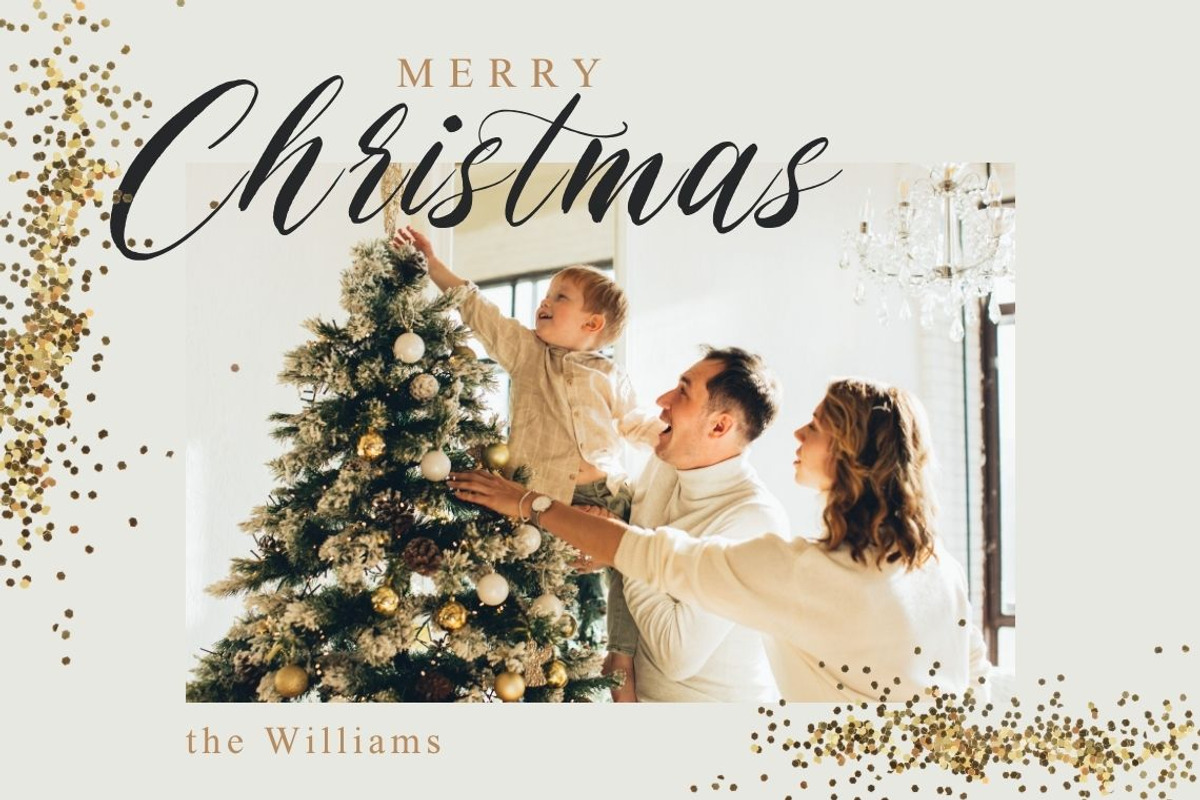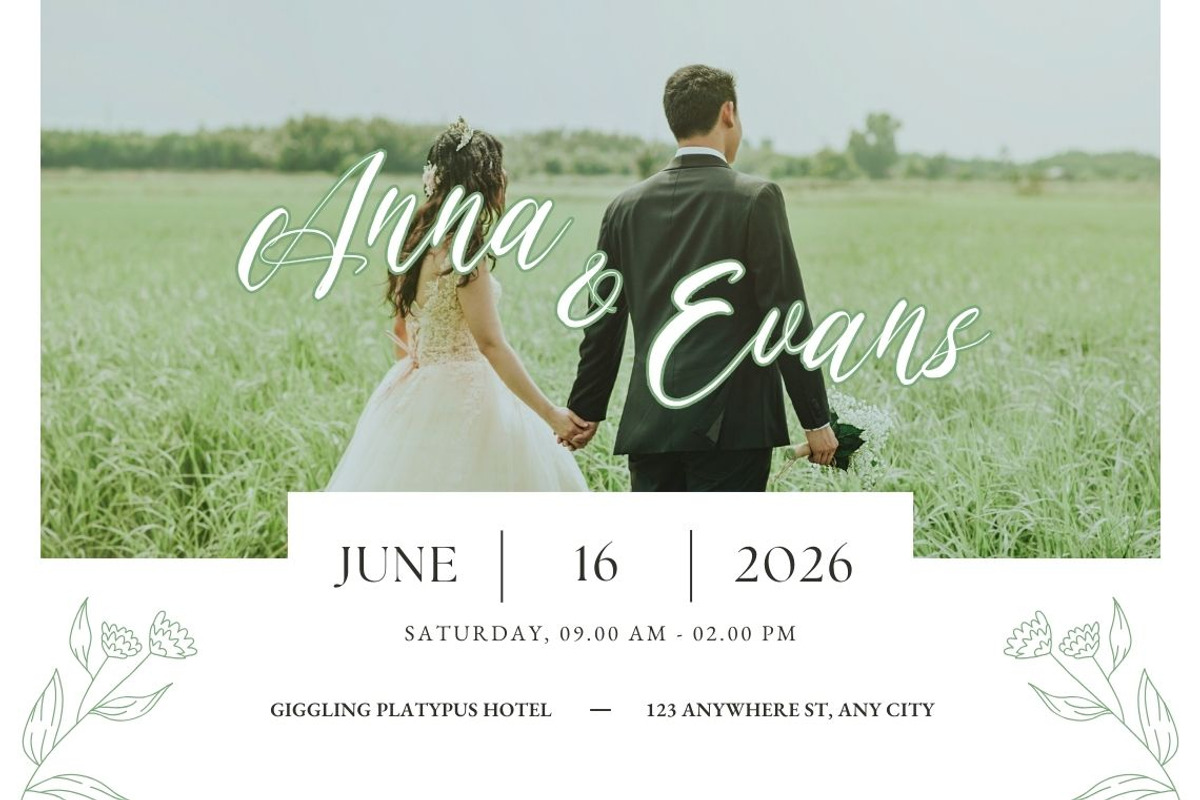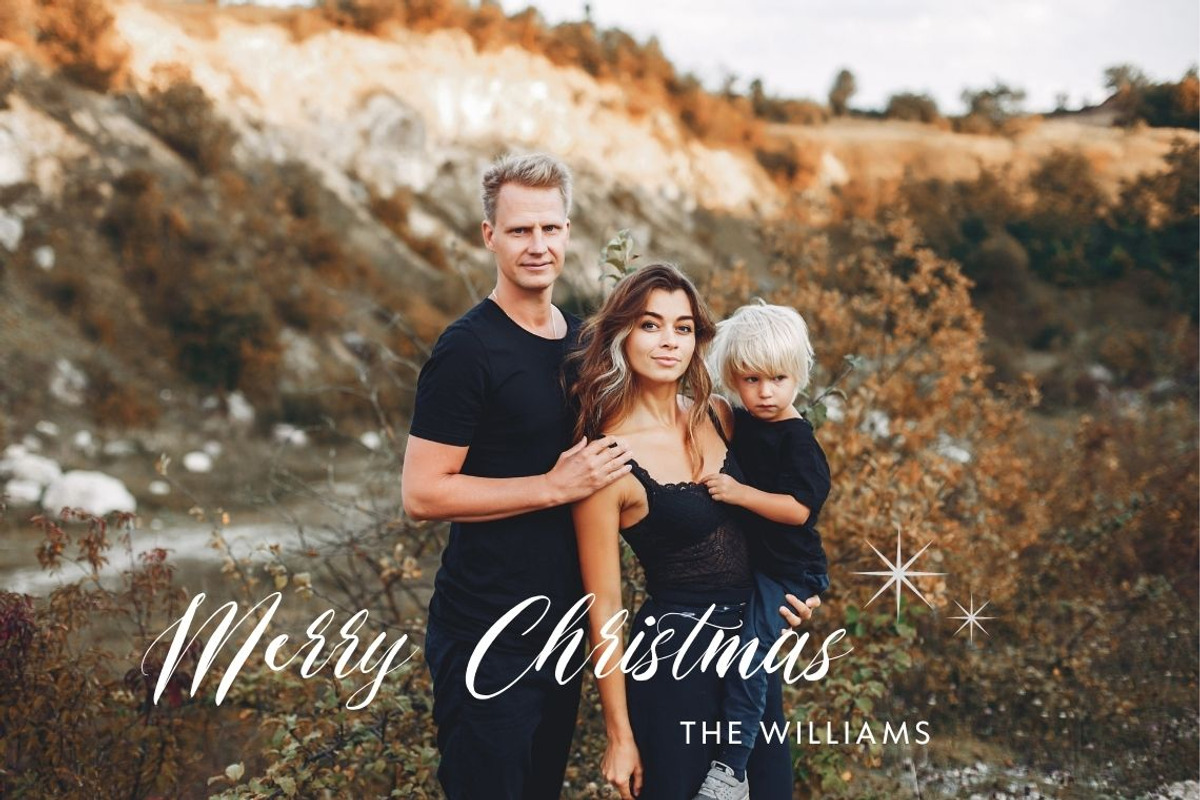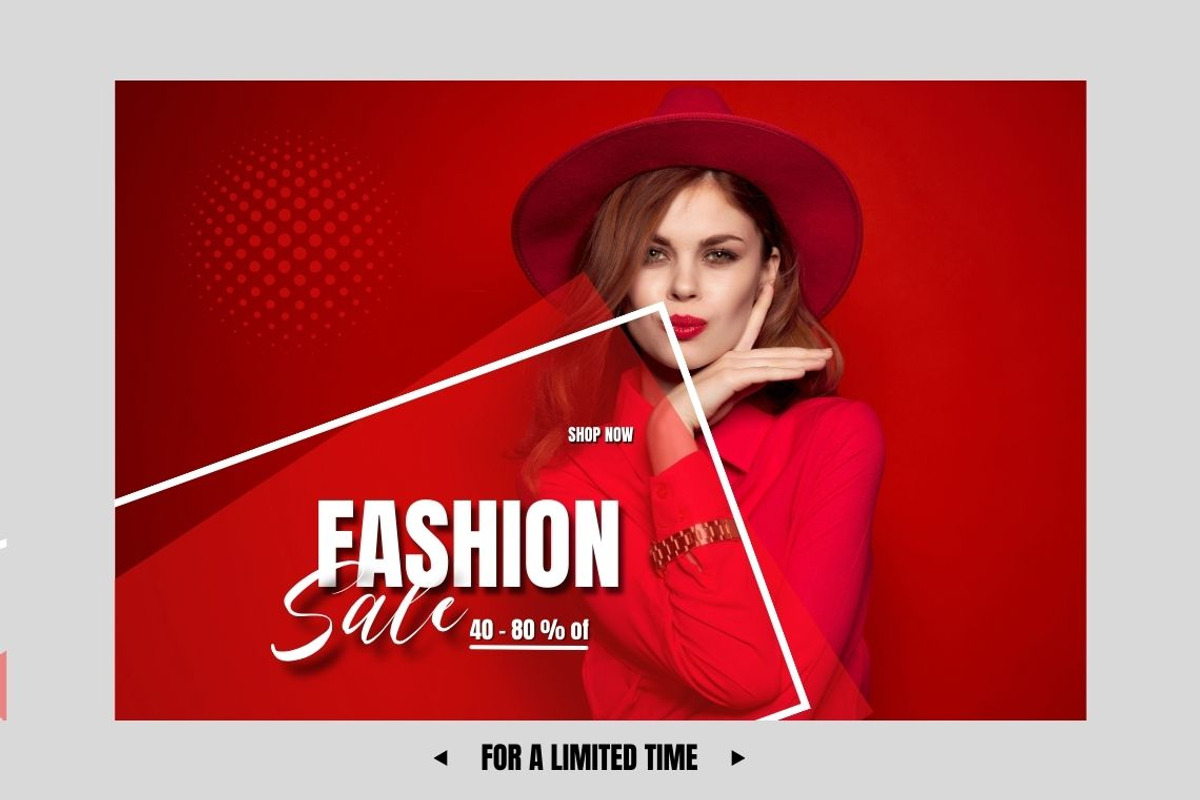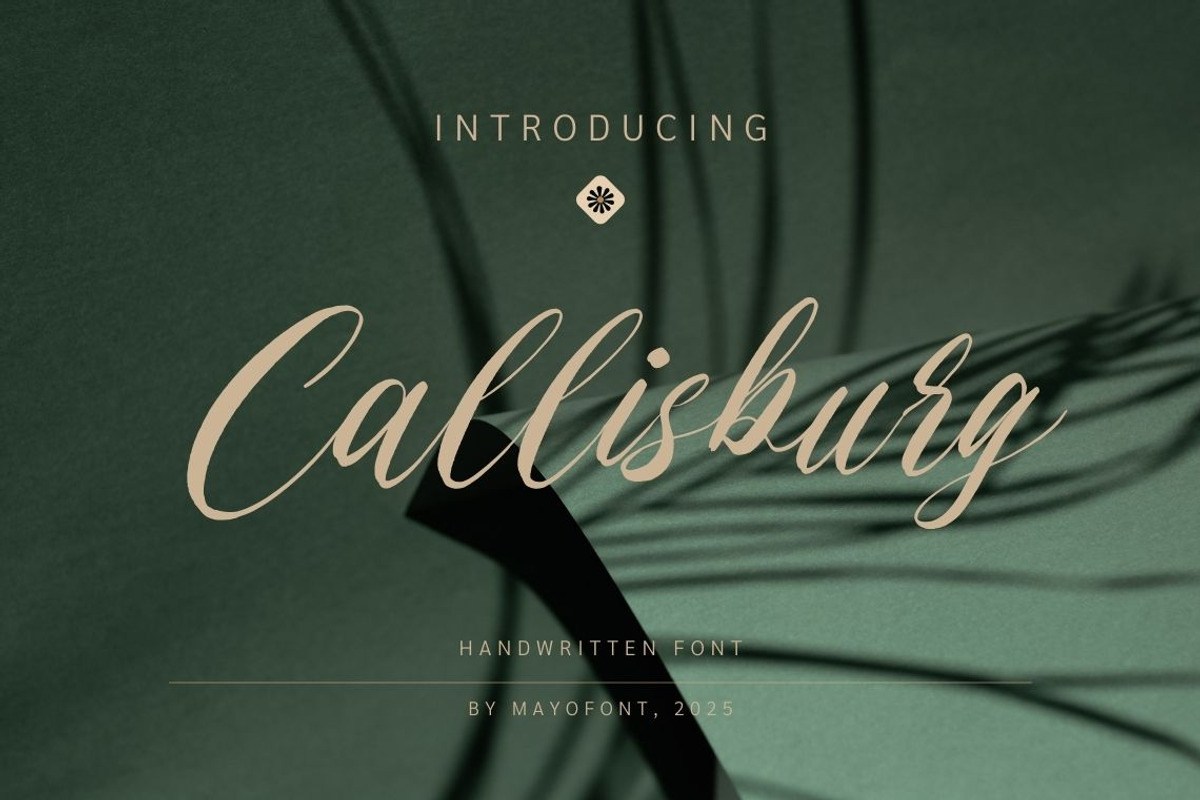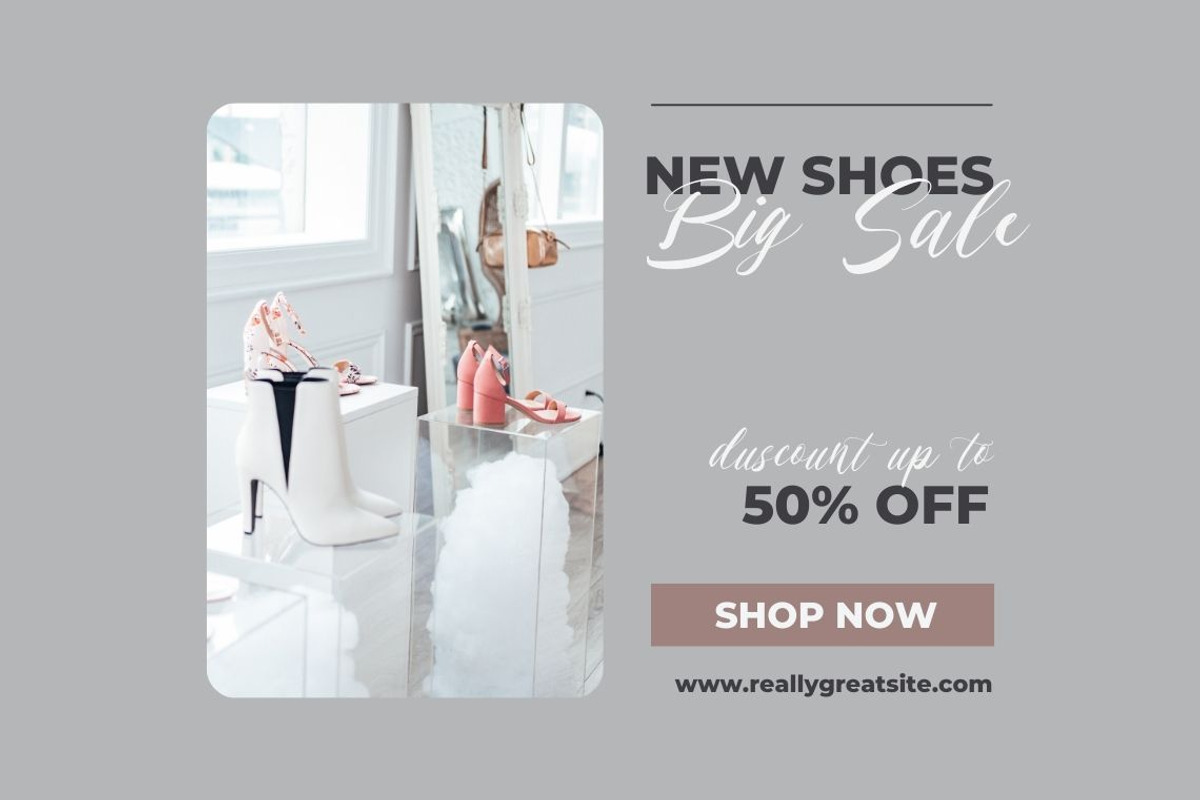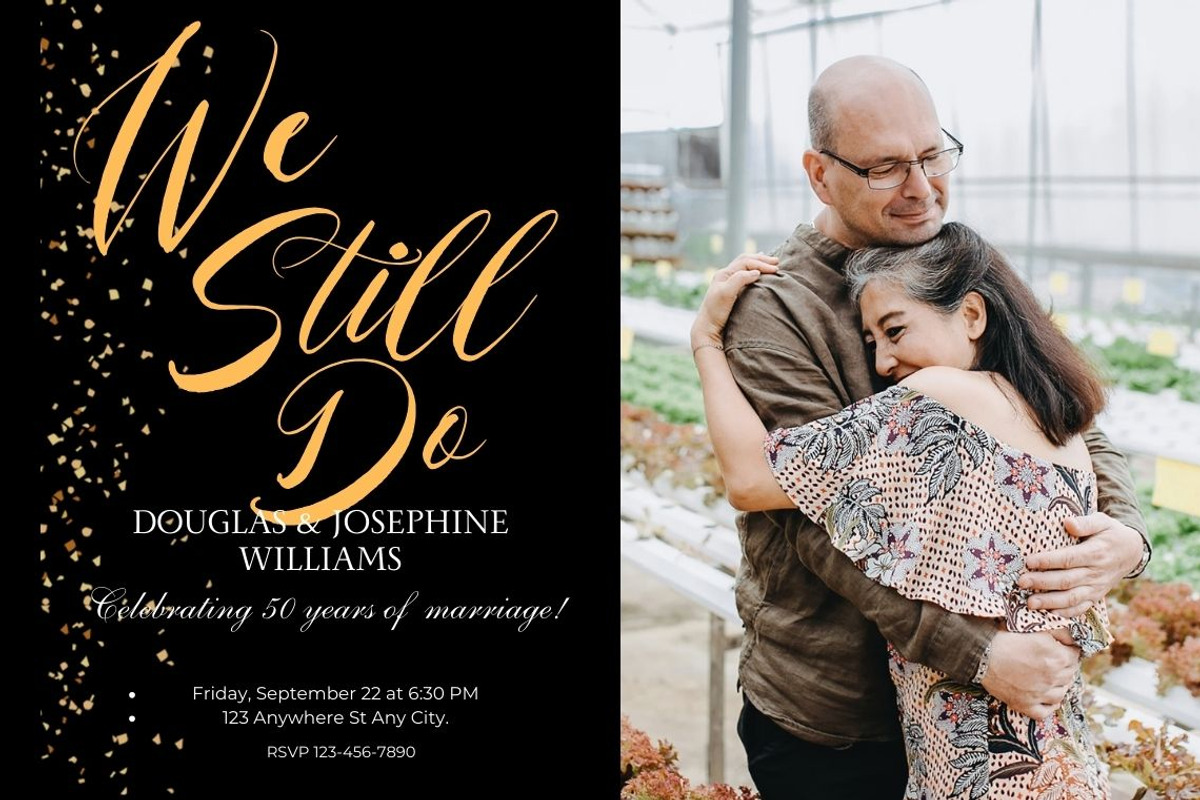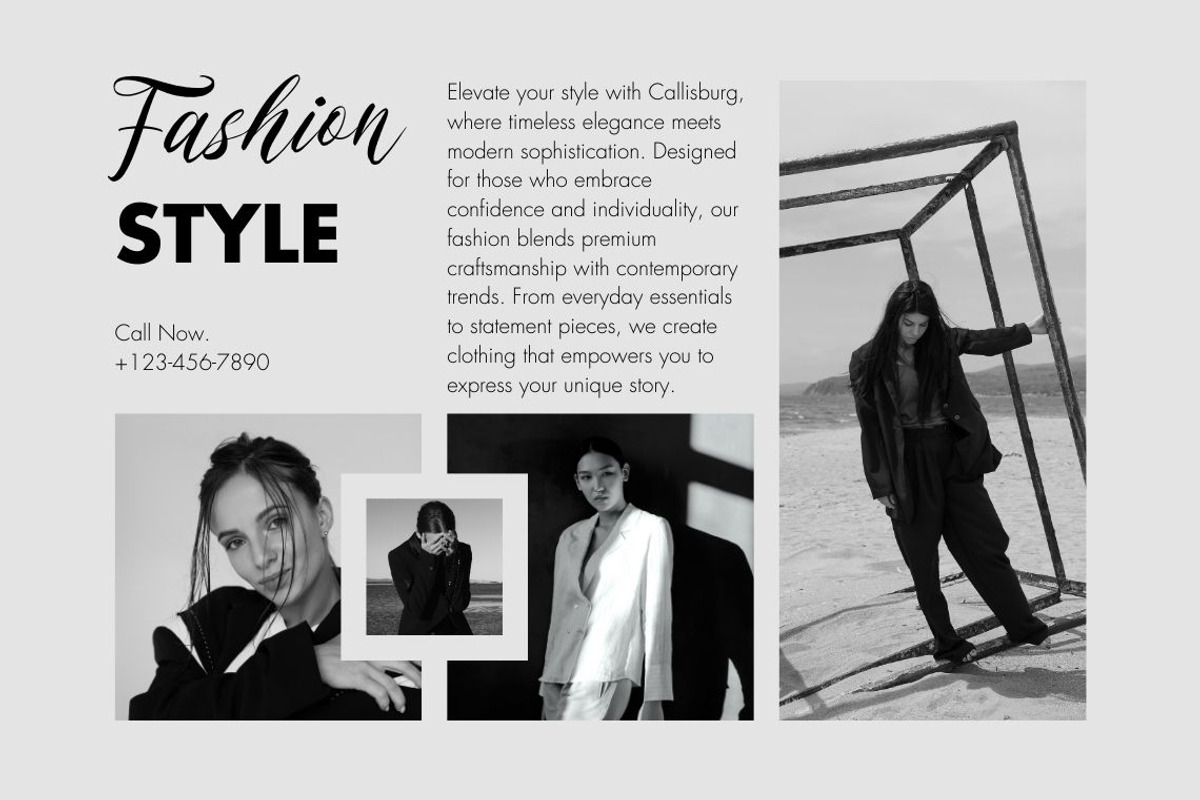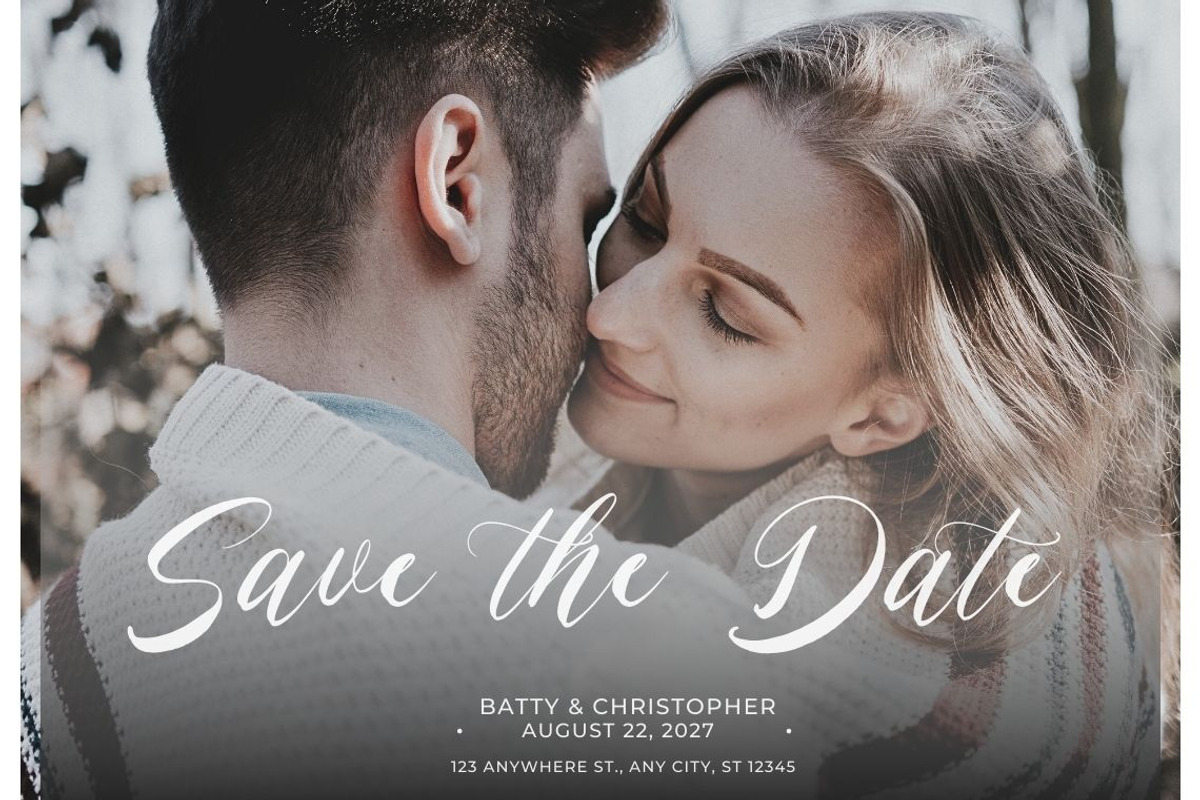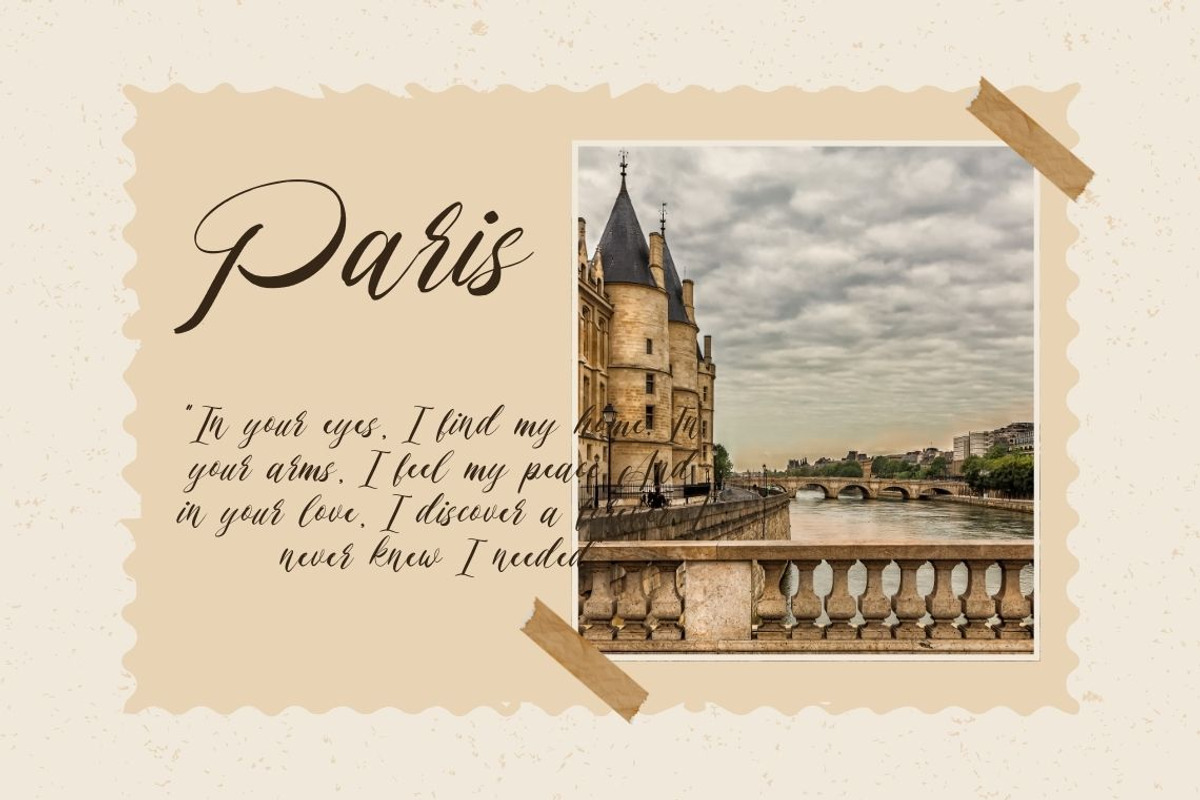
Callisburg Handwritten
Callisburg Handwritten is a stylish and elegant script font that captures the beauty of natural handwriting. With smooth strokes and fluid curves, this font exudes warmth and sophistication, making it perfect for branding, invitations, logos, and creative projects. Its organic and personal touch adds a sense of authenticity, making every word feel unique and expressive
- multilingual support & ligature